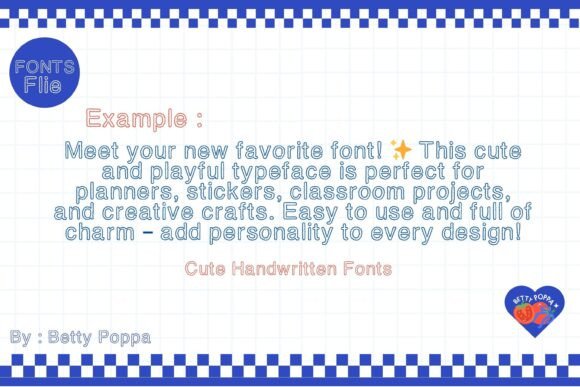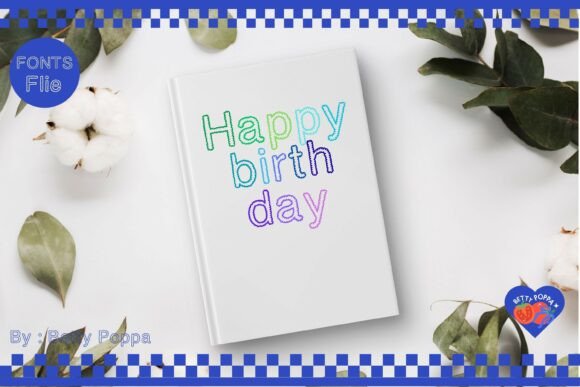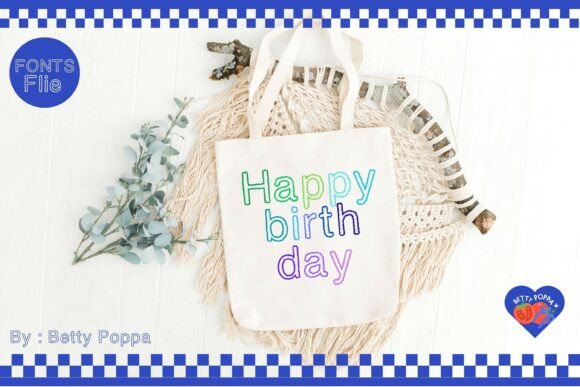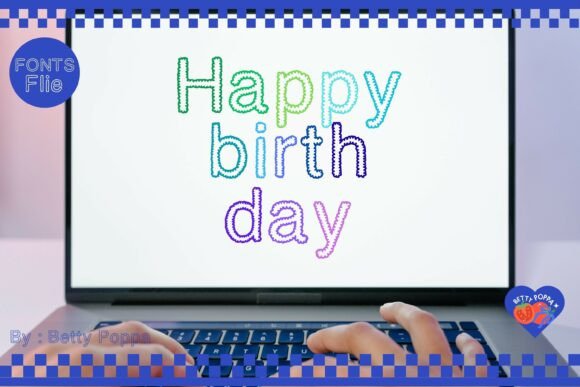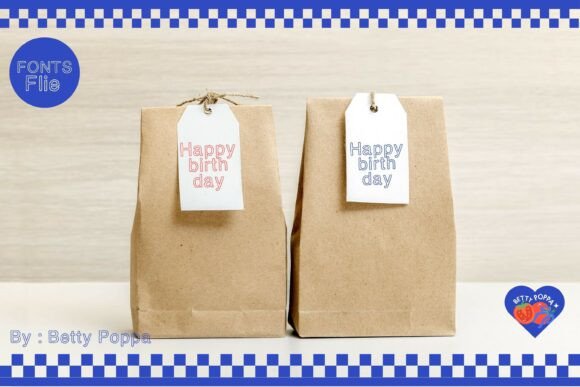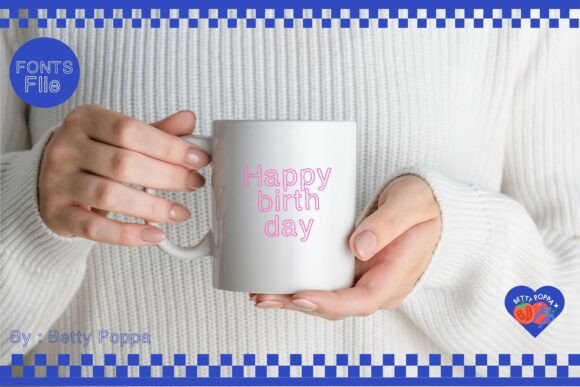
Creating Joyful Designs with the Bubbly Line Font
Do you remember the excitement of creating handmade crafts and artwork as a child? The thrill of getting messy with paint, glitter, and colorful markers, and the sense of pride that came with finishing a project? That same sense of joy and creativity can be captured with the Bubbly Line Font, a unique and playful typeface that brings a touch of handcrafted charm to digital designs.
The Bubbly Line Font is a versatile and tactile design that’s perfect for creators working in the youth and education sectors. Its distinctive “stitched” outline gives the impression of letters carefully embroidered or drawn with a fine-tipped marker, evoking a nostalgic and whimsical charm that’s irresistible for projects that need to feel warm, approachable, and high-energy.
- Font Family: Bubbly Line Font is a unique, hand-drawn font family designed to evoke a playful and whimsical feel.
- Unique Characteristics: Bubbly Line Font features a distinctive, hand-crafted aesthetic with subtle imperfections, giving it a one-of-a-kind feel.
Bubbly Line Font Review
I recently had the chance to work with the Bubbly Line Font, and I must say it’s a unique addition to any design project. Here are some of the things that work well: ✨
- Whimsical feel: The font’s playful, bubbly style adds a touch of fun and whimsy to any text, making it perfect for projects that require a lighthearted tone.
- Versatility: Bubbly Line Font is surprisingly versatile and can be used for a wide range of applications, from children’s book illustrations to social media graphics.
- Readability: Despite its playful nature, the font is still relatively easy to read, making it suitable for body text or short paragraphs.
However, there are a few limitations to keep in mind: ⚠️
- Size limitations: The font’s design may not scale well for larger text sizes, which can make it appear less clear or even distorted.
- Lack of subtlety: The font’s playful style may be overwhelming for projects that require a more serious or professional tone.
Overall, I think the Bubbly Line Font is a great addition to any designer’s toolkit, but it’s essential to use it judiciously and consider the context in which it will be used.
Tips for Getting the Most Out of the Bubbly Line Font
Use the Bubbly Line Font for titles, headings, and other text elements that require a playful and whimsical touch.
Combine the Bubbly Line Font with other fonts to create a unique and eye-catching design.
The Bubbly Line Font is ideal for:
- Whimsical and playful designs.
Alternatives to Bubbly Line Font for Designers
Great Vibes is a modern, cursive font that is perfect for creating a fun and playful atmosphere. It is ideal for use in headings, titles, and other text elements where a sense of excitement and energy is desired. In comparison to Bubbly Line Font, Great Vibes has a more refined and elegant feel, making it suitable for a wider range of design applications.
Pacifico is a beautiful, elegant script font that is reminiscent of handwritten text. It is perfect for use in branding, packaging, and other design elements where a sense of sophistication and luxury is desired. Compared to Bubbly Line Font, Pacifico has a more refined and polished feel, making it suitable for high-end design applications.
Carolyna Pro is a modern, elegant script font that is perfect for use in headings, titles, and other text elements where a sense of sophistication and elegance is desired. It has a more refined and polished feel compared to Bubbly Line Font, making it suitable for a wide range of design applications, from branding to packaging.